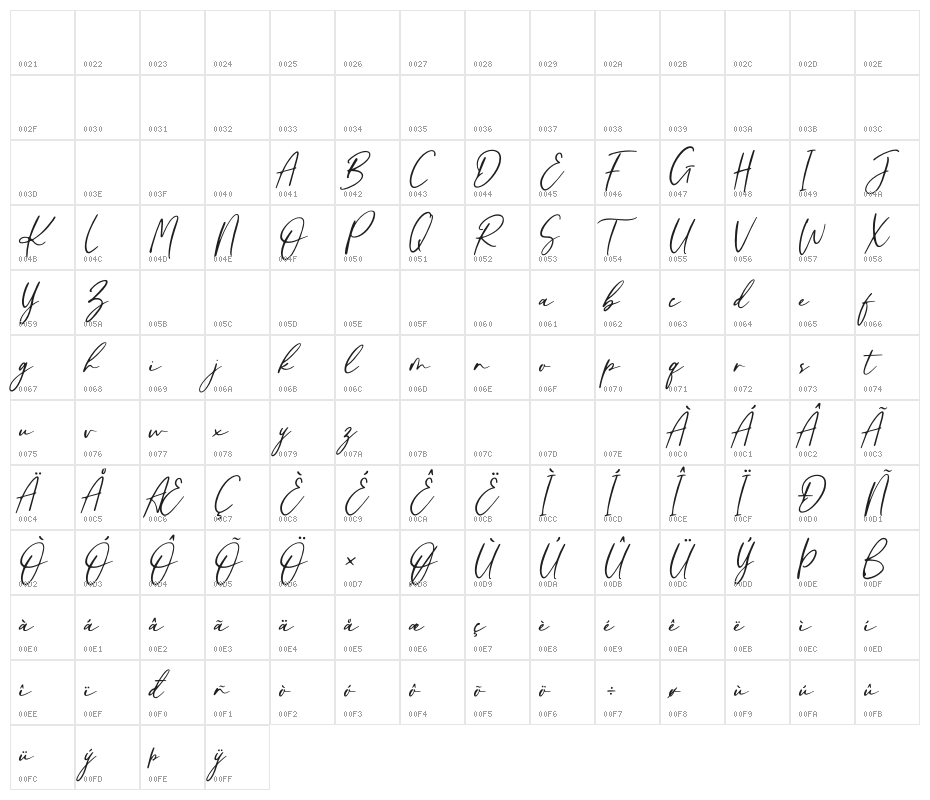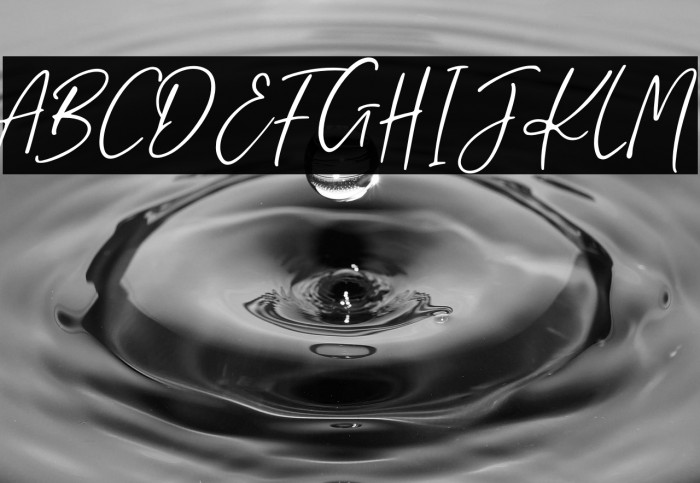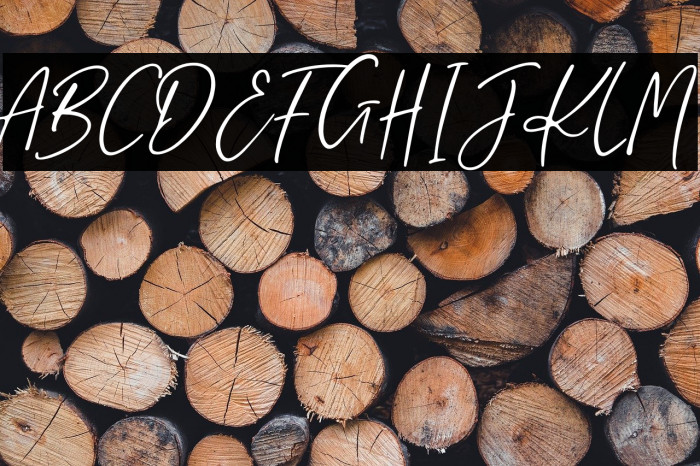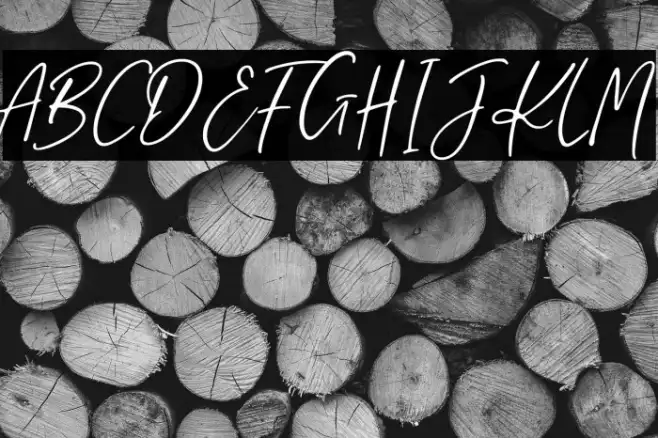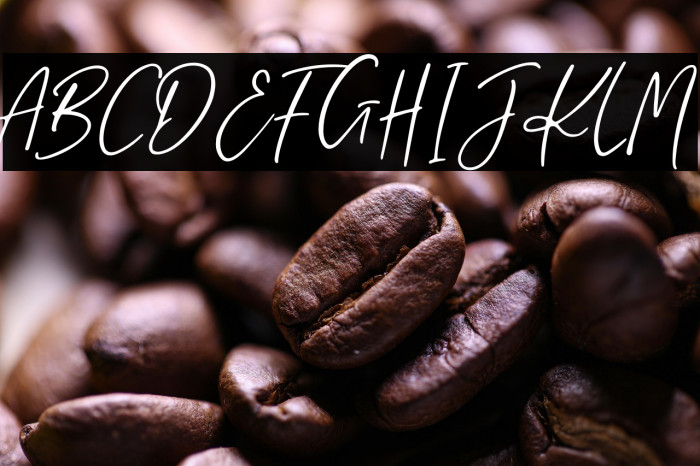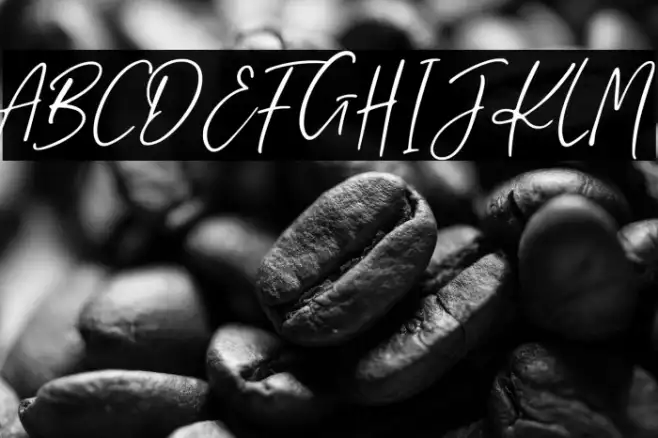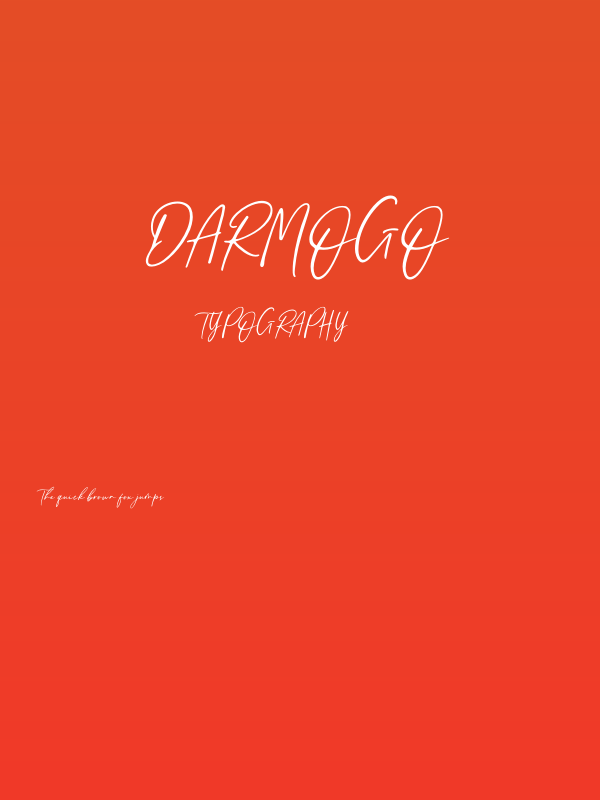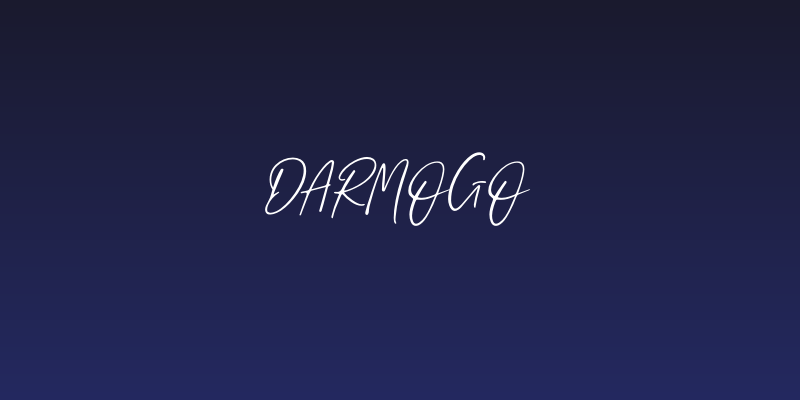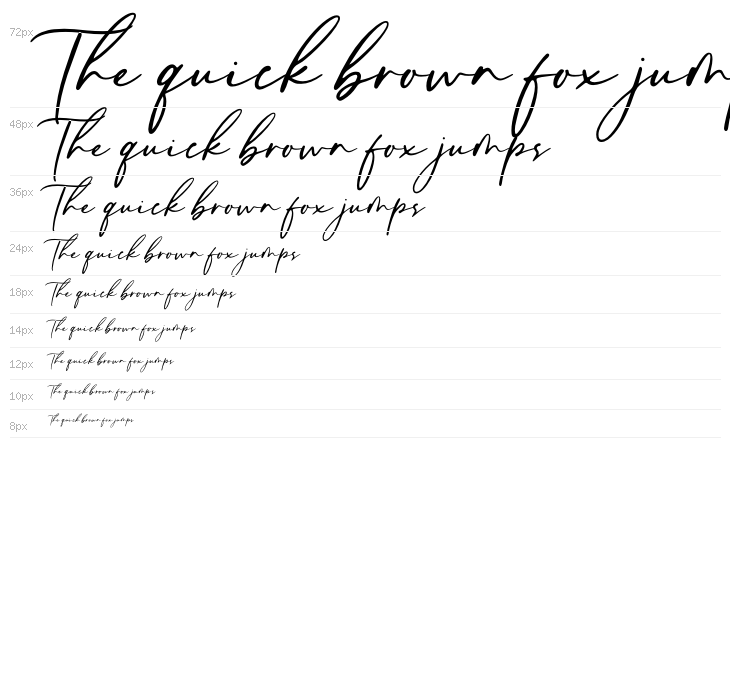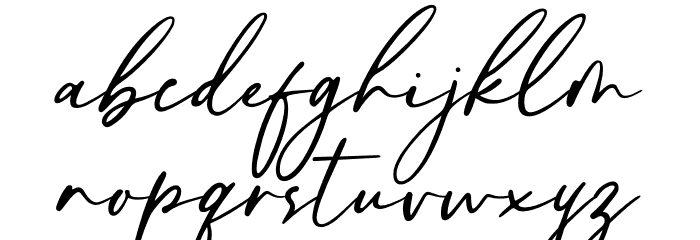
Darmogo Font
Darmogo Description
This font exudes a dynamic and expressive style, characterized by its flowing, cursive script that mimics natural handwriting. The letters are elegantly connected, with a slight slant that adds a sense of movement and grace. The strokes vary in thickness, providing a medium contrast that enhances readability while maintaining an artistic flair. The uppercase letters are bold and prominent, while the lowercase letters are more delicate, creating a harmonious balance. This font is perfect for projects that require a personal touch, such as invitations, greeting cards, or branding materials that aim to convey elegance and sophistication.
| Use Case | Invitations, Branding, Greeting Cards |
| Proposed Projects | Ideal for wedding invitations, personal branding, greeting cards, and elegant signage. |